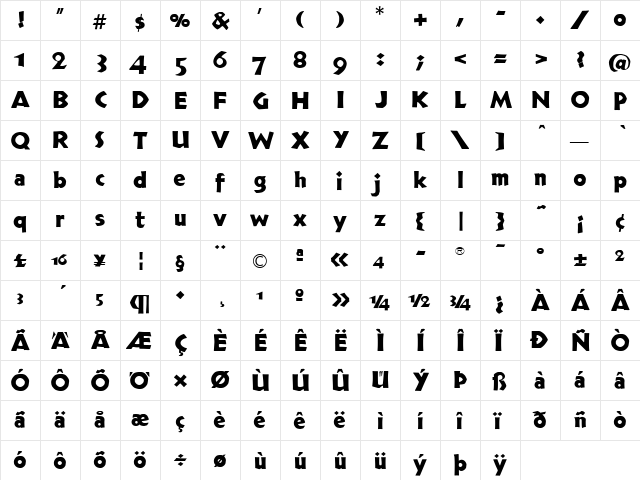
TFNeueneulndBoldOsf Normal Font Preview
TFNeueneulndBoldOsf Normal
TFNeueneulndBoldOsf Normal Font Details
Design Context for TFNeueneulndBoldOsf Typeface
TFNeueneulndBoldOsf takes a measured approach to typography — its balanced proportions and neutral character make it a reliable workhorse for both digital and print work. The heavy weight commands attention and anchors typographic hierarchies.